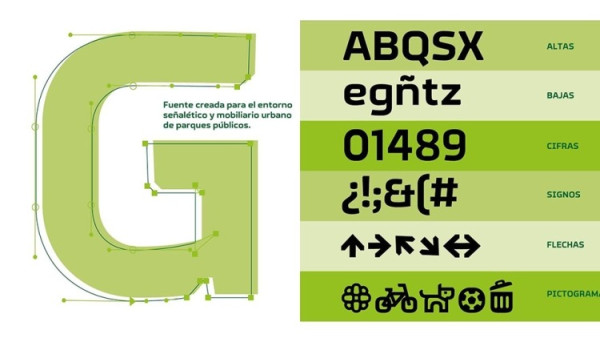
Parquetipo Font
Parquetipo Font Free is a sans serif typeface designed for wayfinding within public parks. Parquetipohas been designed based on specific formal aspects: modular construction, geometric stroke, bold weight, high contrast.
Parquetipo consists of three variants:
Parquetipo Regular
Optimized for medium texts on display, for use in signage.
Parquetipo Unicase
Designed to represent very short and very large texts, the idea is that they are also used for monumental typographic installations that can be positioned on the floor or titles with space savings and an alternate and complementary style.
Parquetipo Icons
A set of almost 40 icons (including arrows) useful for signaling and making object or monumental installations were developed.